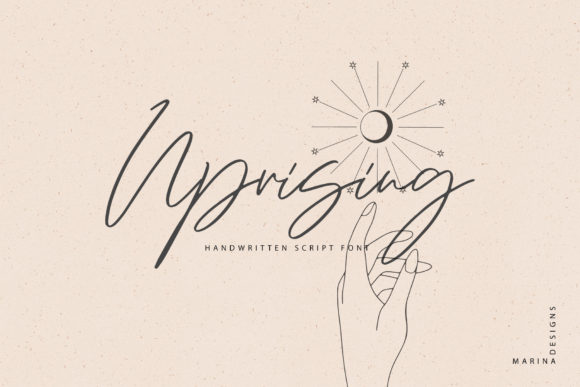
Introducing Uprising Font, an exquisite expression of creativity, designed with love by marinadesignscompany. Uprising is a captivating handwriting font, infusing a touch of whimsy into your digital creations. Its alluring thin strokes dance across the canvas, embodying delicacy and charm. Prepare to be enthralled as you witness the beauty it brings to life.
Crafted with a flair for elegance, Uprising is more than just a font; it's an experience. Imagine your words painted with grace, exuding a poetic allure that captivates readers. Let Uprising be your muse as you design wedding invitations, personal cards, and any project seeking a touch of romance and personalization.
With Uprising, your designs will radiate warmth and a sense of nostalgia. The font's gentle curves and playful loops add a touch of charm, making it the perfect companion for creating heartfelt messages and designs that spark joy. Unleash your creativity and allow Uprising to transform your digital creations into works of art.
Embrace the magic of Uprising and embark on a creative journey like no other. Let your imagination soar as you explore the endless possibilities this font offers. From elegant wedding invitations to charming social media posts, Uprising is the key to unlocking a world of creativity. Start your design adventure today and let Uprising be your guiding light.
Dive into the realm of Uprising and discover the boundless potential that awaits you. With its delicate strokes and enchanting charm, this font is sure to leave a lasting impression. Elevate your designs, captivate your audience, and let Uprising work its magic. Experience the joy of creating with Uprising and unlock a world of beauty and inspiration.